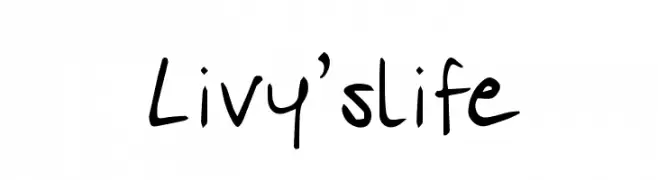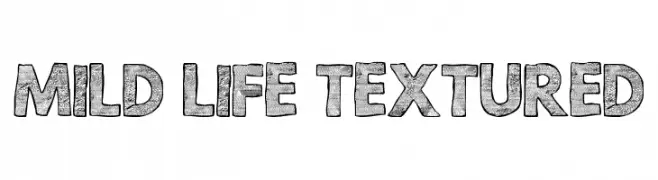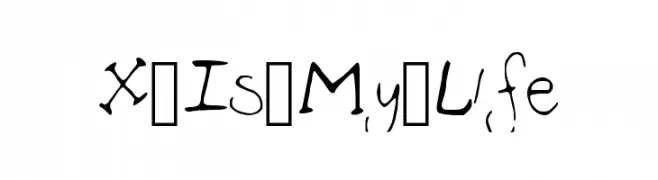
An ornate and decorative script font with elegant swirls and flourishes.
A playful handwritten font with smooth curves and a casual style.
A playful, hand-drawn font with bold, expressive strokes and a whimsical style.
A clear, educational music notation font with bold noteheads and simplified symbols.
A playful, hand-drawn font with tall, narrow characters and a whimsical style.
A playful, handwritten font with tall, narrow letters and smooth curves.
A playful, casual handwritten font with smooth, flowing lines and varying stroke widths.
A bold, textured font with a hand-drawn, vintage feel.